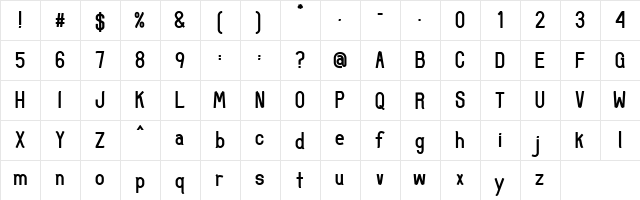
Uncertain Sans Regular
| Foundry | Sabit Kovacevic |
| Designer | Sabit Kovacevic |
Design Context for Uncertain Sans Typeface
Uncertain Sans offers clean, dependable letterforms without strong stylistic allegiance, making it a practical choice for designers who need flexibility.